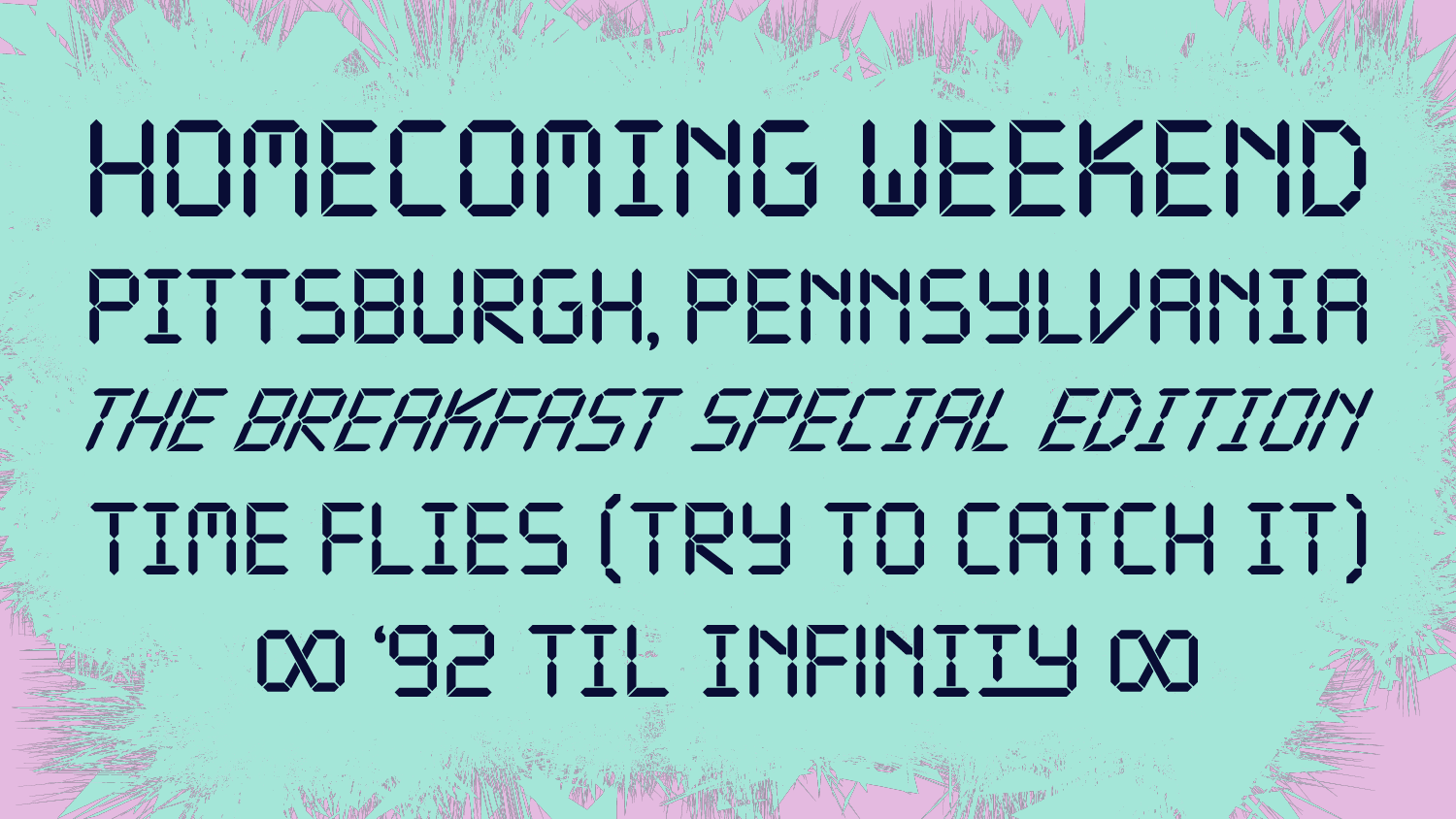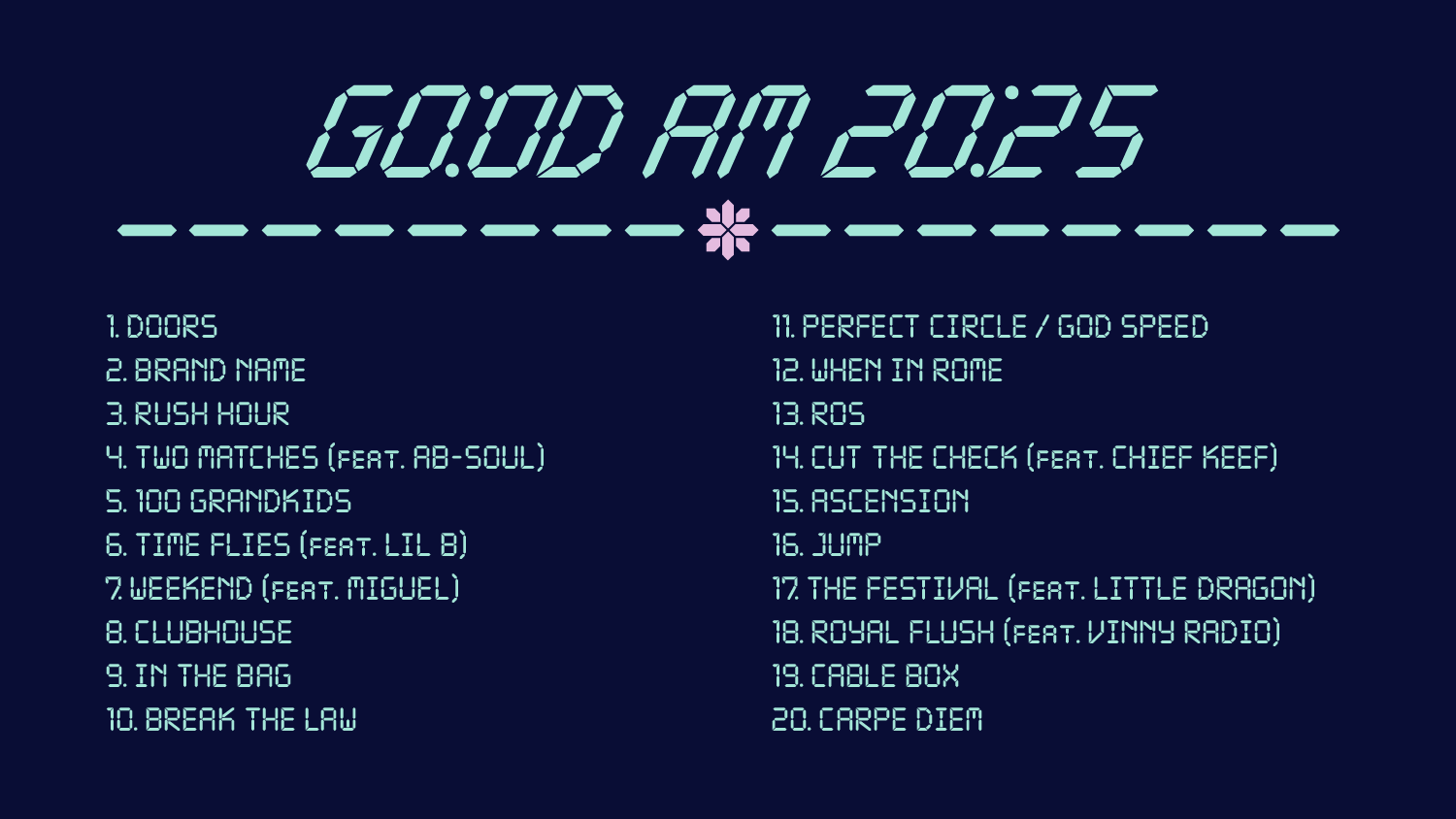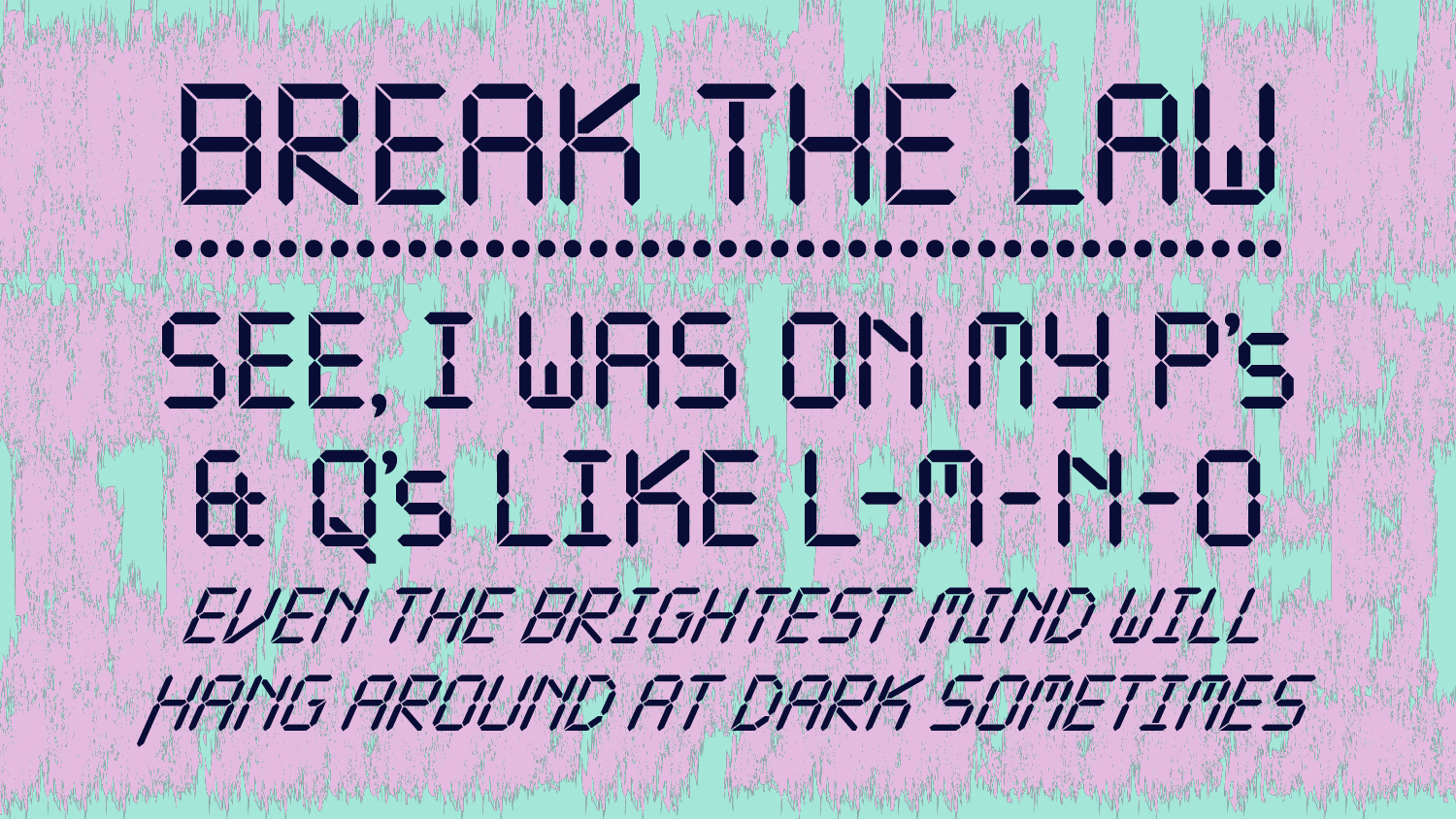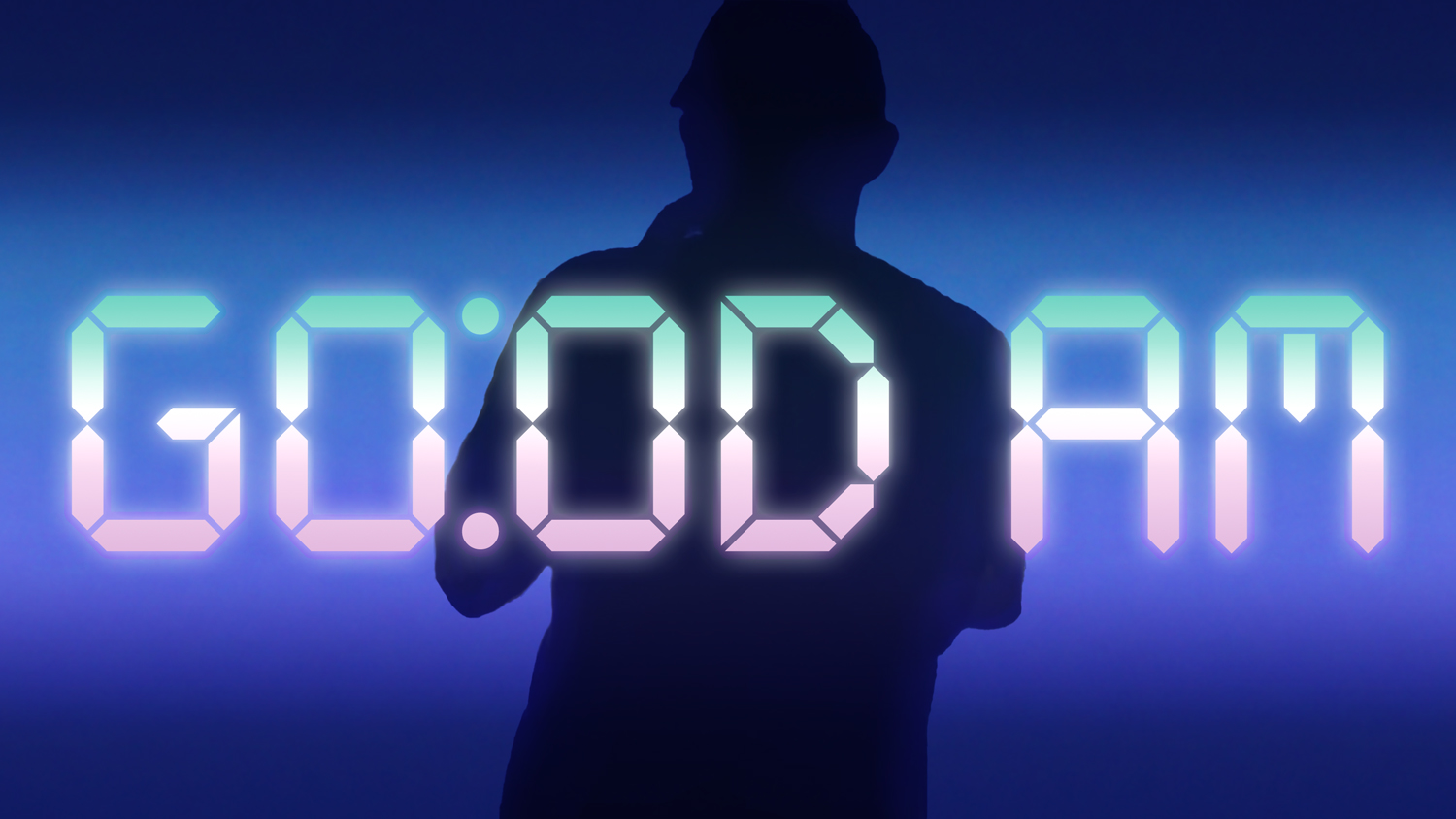
“GO:OD AM” Case Study
Delve Withrington—
Commemorating the 10th Anniversary of Mac Miller’s album “GO:OD AM”
Leading up to the 2015 release of “GO:OD AM” — Mac Miller’s third studio album and major label debut — Delve Fonts was commissioned to create custom lettering to be featured on the album, packaging, merch, stage props, and more. The letterforms were inspired by classic LCD clock face displays, a typographic visual that relates to the album concept.
The late rapper-producer died in 2018 at age 26. His legacy continues with posthumous projects from his estate. To commemorate the 10th anniversary of GO:OD AM, a special edition of the album was planned.
The chance to revisit and expand on work completed for what was seemingly a one-time project for a client is uncommon. So being tapped to do just that for the commemorative release was unexpected and an honor. The directive was to expand on the original lettering from 2015 and develop it into a full font for broader use across various media in support of the project’s launch. The album dropped on October 24, 2025 and it includes a 3LP vinyl set featuring three previously unreleased songs.
The typeface can be seen in videos, on the Mac Miller site and shop, on merch, and elsewhere.